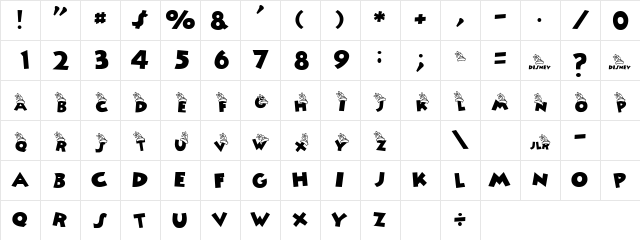
Minnie's Hat Regular
Design Context for Minnie's Hat Typeface
Minnie's Hat is a composed and adaptable typeface that performs quietly and consistently across a wide range of design contexts.